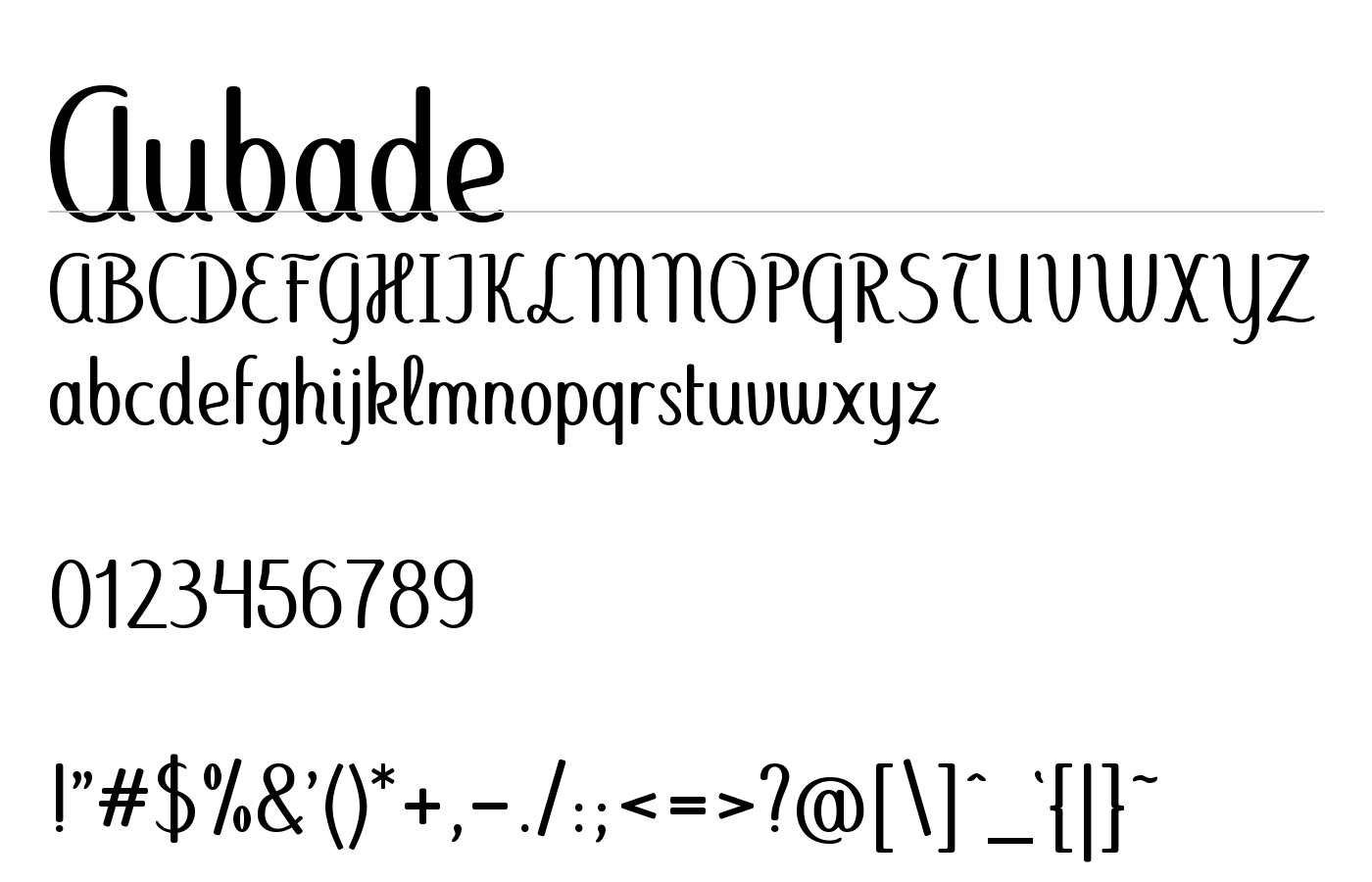
Aubade is a stylish serif font featuring tall, narrow letterforms with delicate stroke contrast and subtle curves that give it a refined, vintage feel. Its unique, slightly whimsical shapes and smooth serifs make it ideal for elegant branding, editorial headlines, and creative projects that want to balance sophistication with a touch of personality. The font’s graceful appearance works well for fashion, invitations, and stylish packaging where a distinctive yet readable typeface is desired.
Aubade Font
About Aubade Font
| Font family | Aubade Font |
| Designer | Yves Michel |